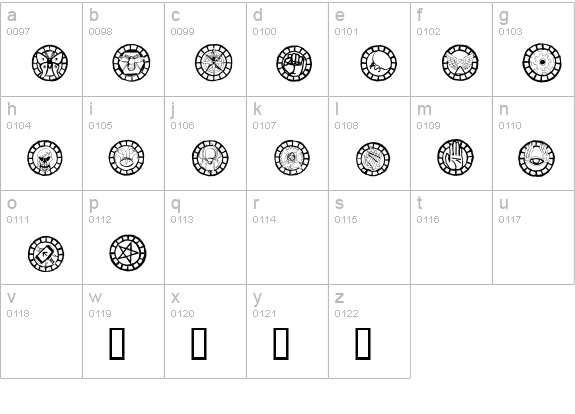
WWChangelingBats Font Details
Introducing the captivating and enchanting WWChangelingBats font. This unique typeface is sure to add a touch of mystique and magic to any project or design. With its intricate and mesmerizing details, this font is perfect for those looking to make a bold statement and stand out from the crowd. Featuring an array of whimsical bat-inspired symbols, WWChangelingBats font is the perfect choice for anyone seeking to add a touch of darkness and mystery to their creations. From gothic-inspired designs to Halloween-themed projects, this font is versatile and adaptable to suit any creative vision. What makes WWChangelingBats font even more enticing is the fact that it is freely available to download at FontsMarket.com. Yes, you read that right - this extraordinary font can be yours without any cost. Now, you can unleash your creativity without any limitations or constraints. Whether you're a professional designer, an aspiring artist, or simply someone who wants to add a touch of intrigue to their personal projects, WWChangelingBats font is the perfect choice. Its seamless integration with various design software makes it incredibly easy to use and experiment with. So, why wait? Dive into the world of WWChangelingBats font and let your imagination run wild. Download this captivating font for free at FontsMarket.com and embark on a creative journey unlike any other. Unleash your inner changeling and let your designs take flight with this mesmerizing font.